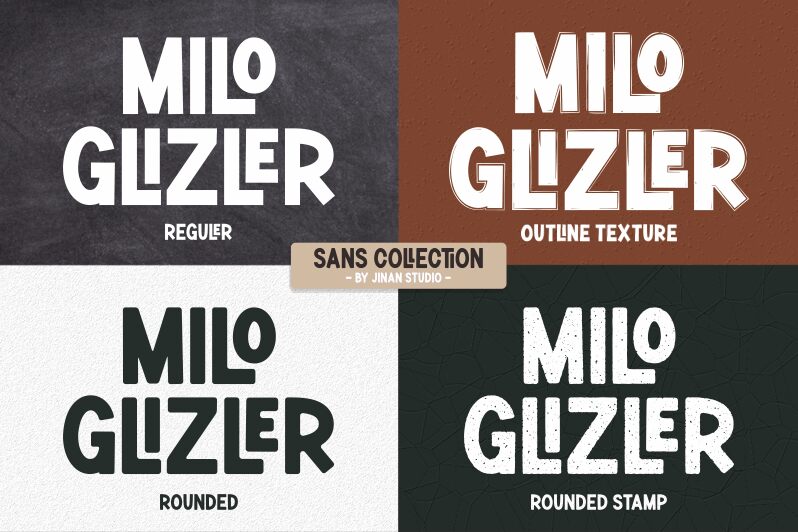
Milo Glizler
Milo Glizler font is a strong geometric all-caps typeface designed by Ainun Jinan. To be used to create modern impactful designs with a strong presence, the font features thick consistent lines that can not go unnoticed. Despite its undeniably impressive direct look, it still holds slightly wavy edges and curved terminals and line ends which contrast with the overall seriousness of the typeface.